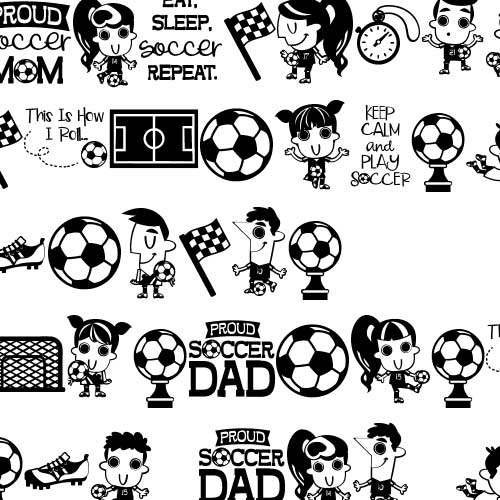
DB Unstoppable - Soccer - DB
This adorable doodlebat features 26 soccer players and soccer themed images. Perfect for your athlete, scrap book pages, card making, gifts, decor, planner stickers and more!